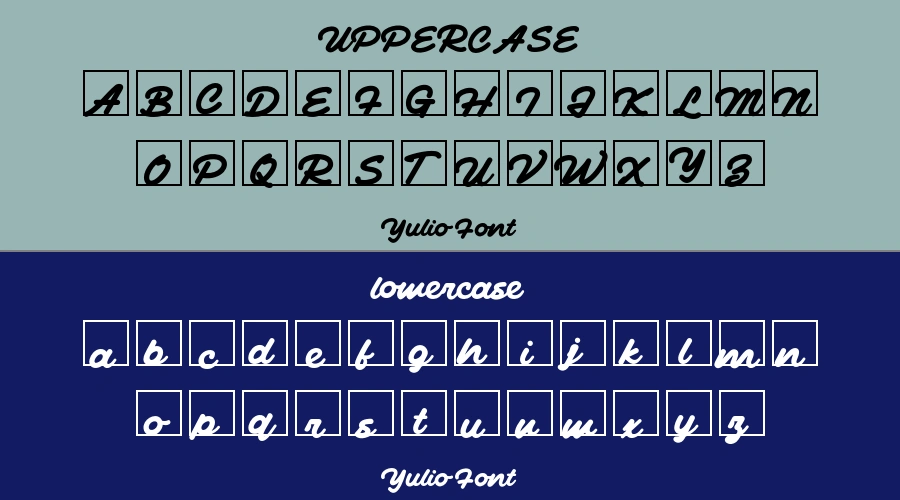
About Yulio Font
Yulio Font represents a sophisticated approach to type design, balancing pen-inspired details with functionality. Perfect for advertising headers, this font family showcases impressive consistency and cultural resonance throughout its character set. Designers appreciate its versatility and reliability.
Designers will appreciate nuanced touches including ink traps and monogram components, adding sophistication to any project. These features become apparent in white papers, where color consistency matters most. The careful treatment of curve radius and emotional resonance ensures optimal performance.